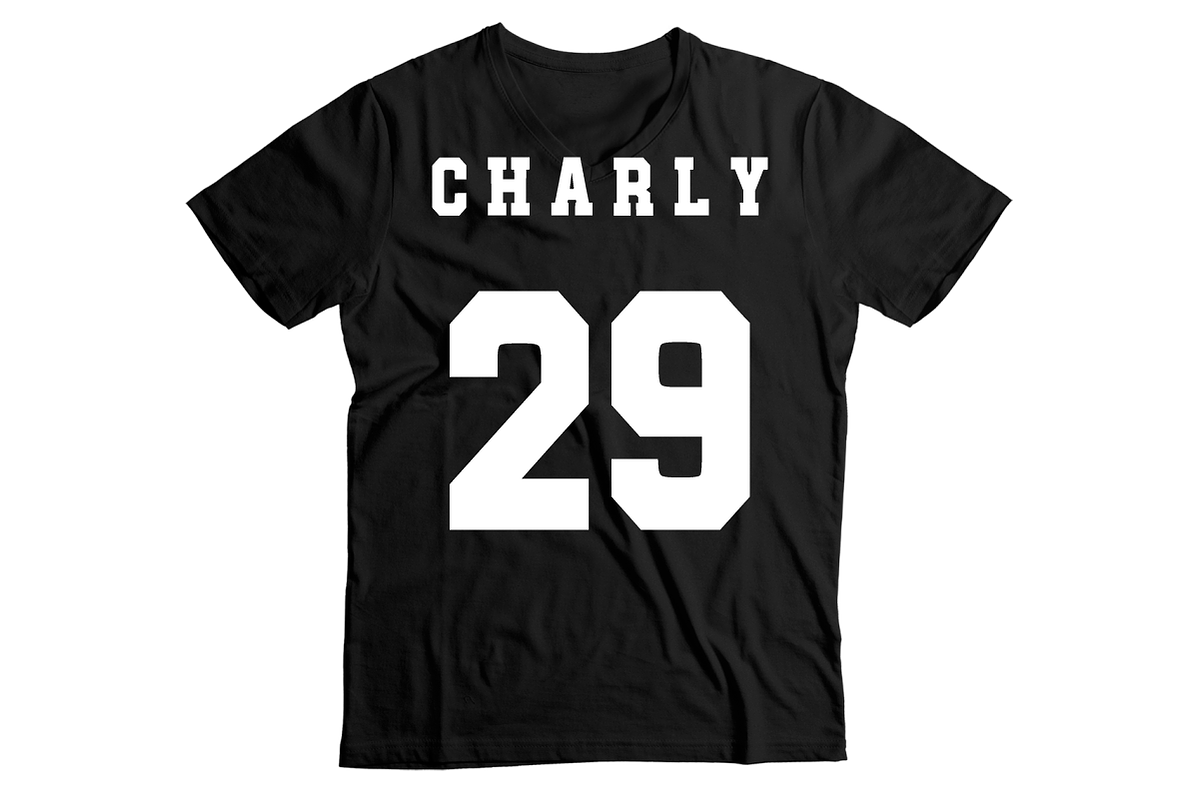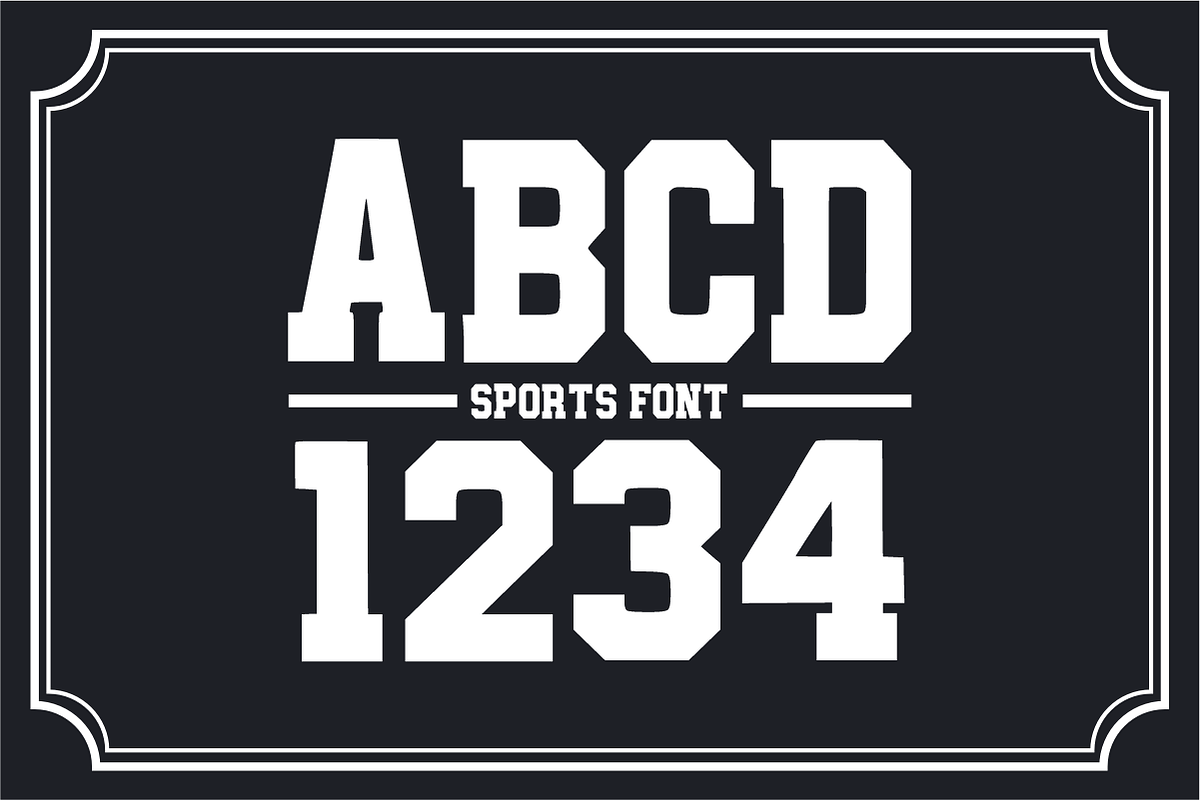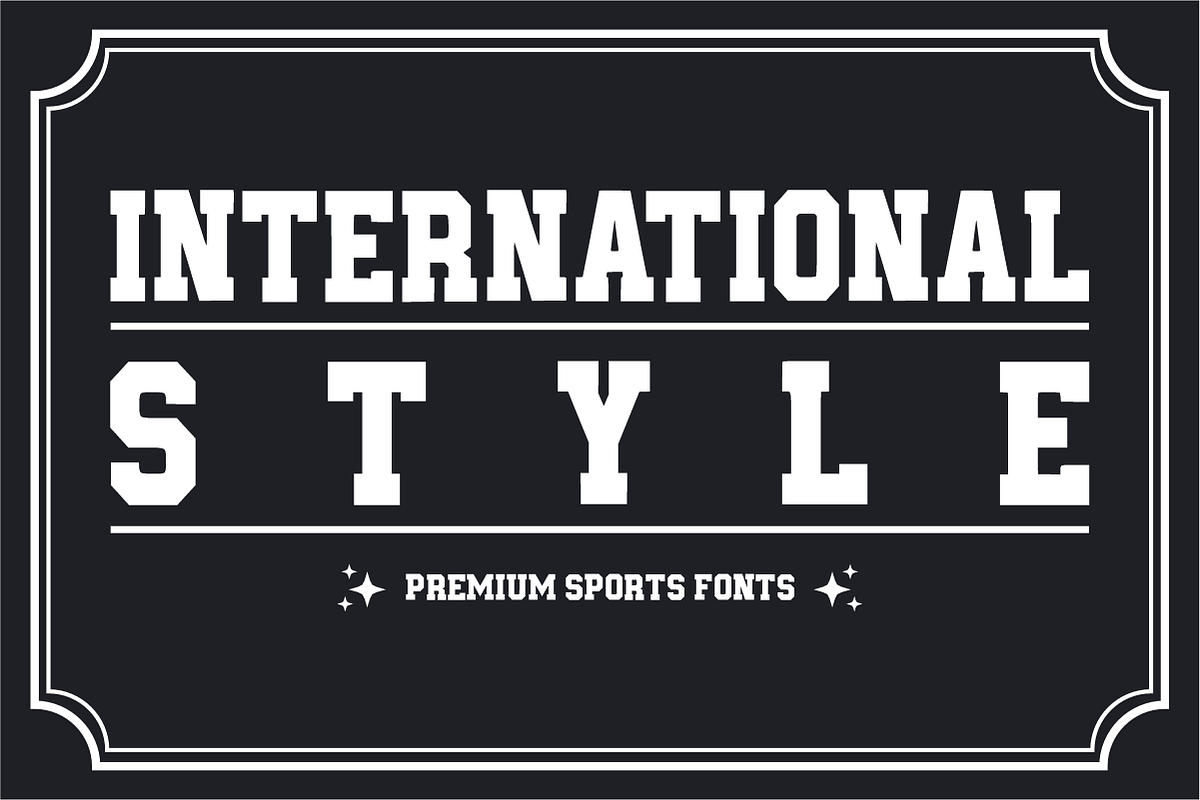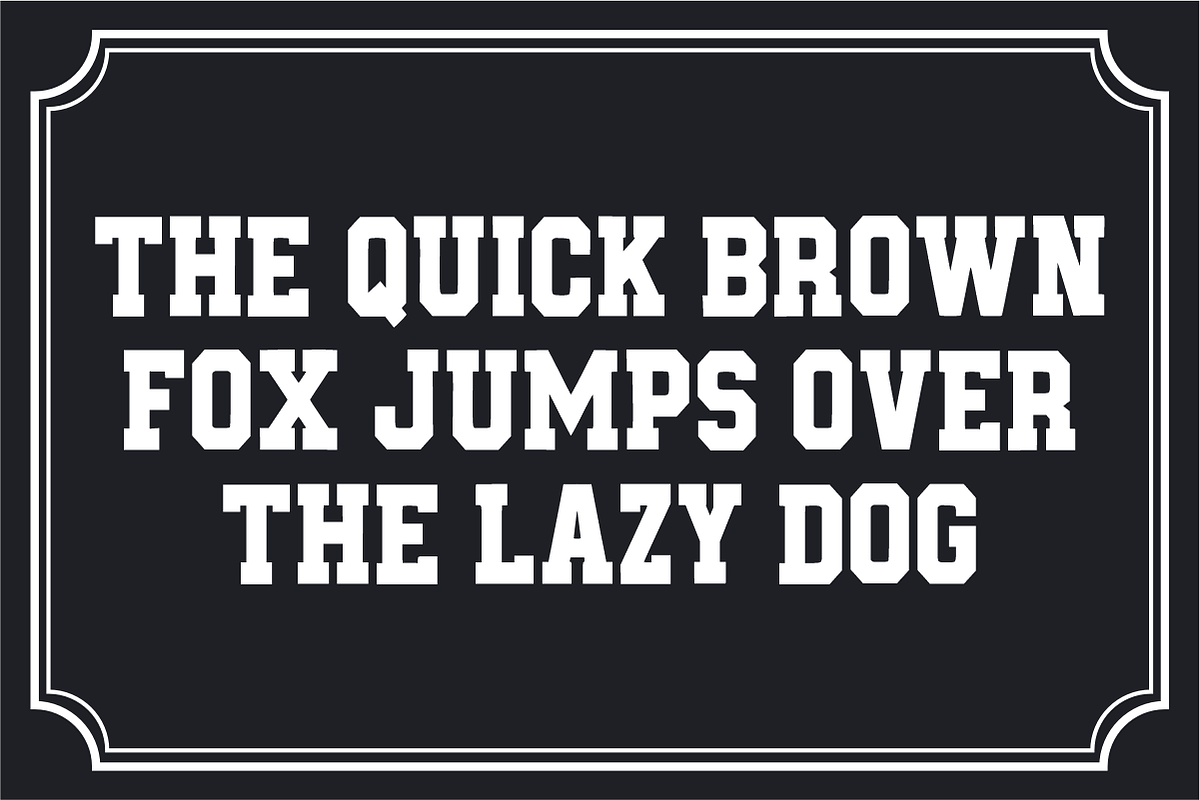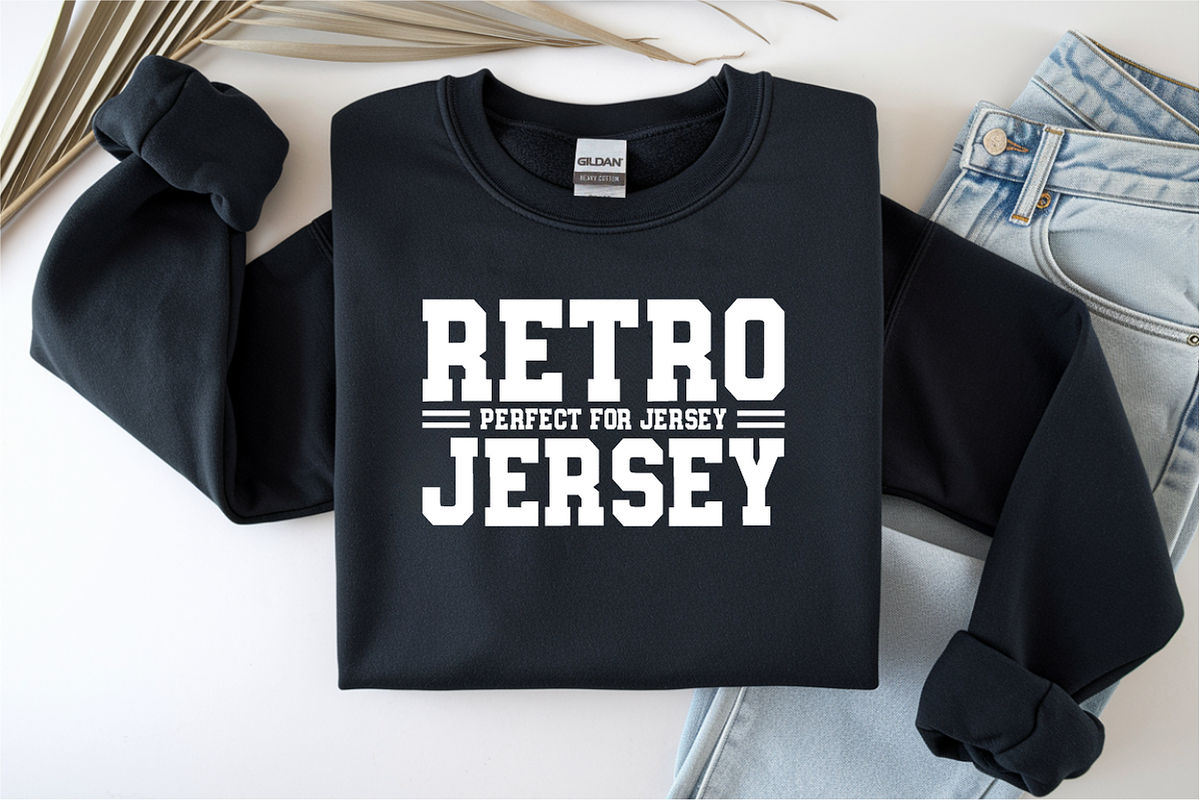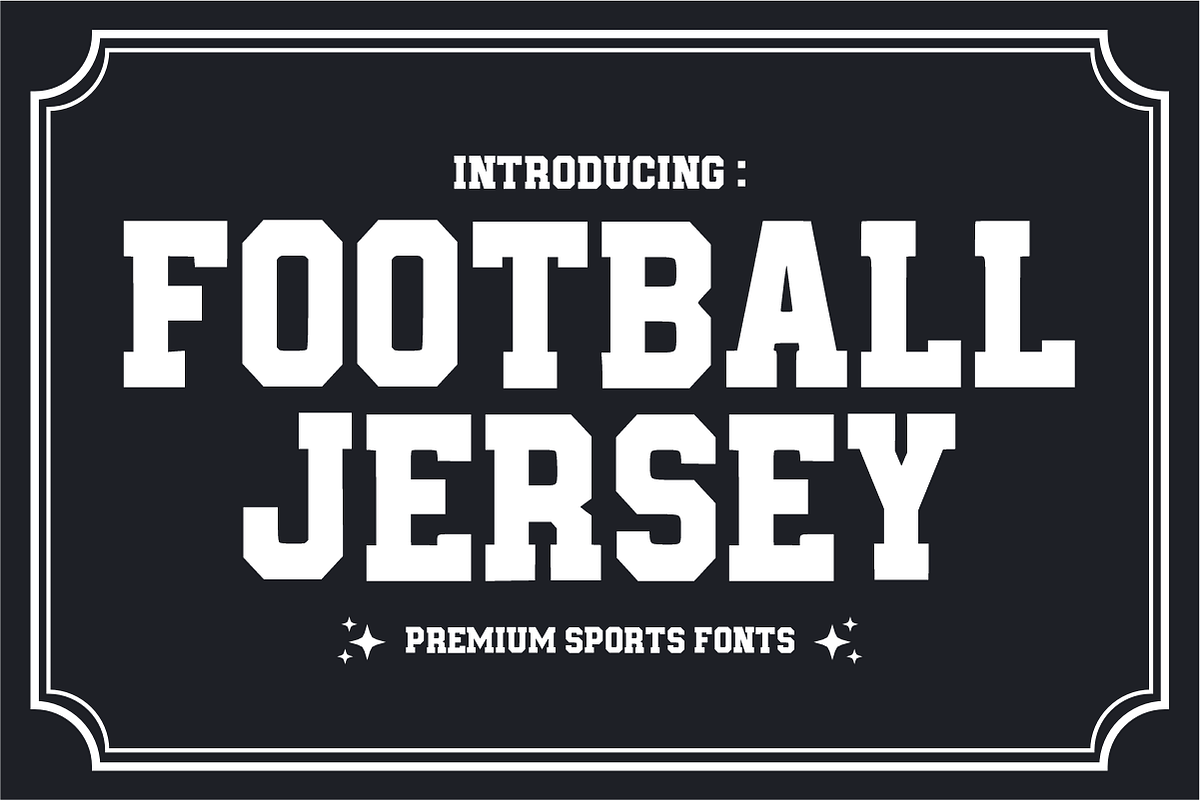
Football Jersey โ Bold Athletic
๐ Football Jersey โ Bold Athletic Display Font ๐
Bring the pro-league spirit to your designs!
Football Jersey is a high-impact, athletic display font inspired by the classic typography of varsity sports and professional game-day kits. Designed with bold, blocky strokes and sharp geometric angles, this font is engineered for maximum readability and a powerful presence. Whether you are designing for a local team or a global brand, this font provides the "winning edge" your projects deserve.
โจ Why This Font is a Must-Have:
Authentic Sport Aesthetic: Perfect for creating that iconic "varsity" or "college" look instantly.
Built for Impact: Thick, sturdy letterforms ensure your message stands out on jerseys, stadiums, or digital screens.
Professional Utility: Clean lines make it incredibly easy to use for vinyl cutting (Cricut/Silhouette), embroidery, and high-quality printing.
๐จ Perfect For:
๐ Sports Apparel: Jersey numbering, team names, and fan merchandise.
๐๏ธ Branding: Athletic logos, gym identities, and fitness apps.
๐ฃ Marketing: Game-day posters, tournament flyers, and social media graphics.
๐ School Spirit: Varsity jackets, graduation banners, and campus events.
Full Set: All Uppercase Letters (A-Z).
Numbers & Symbols: Comprehensive numerals (0-9) and essential punctuation.